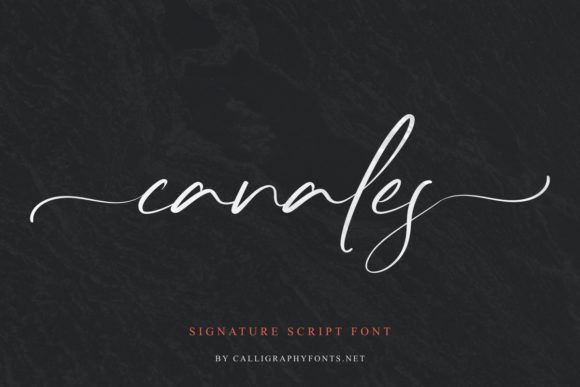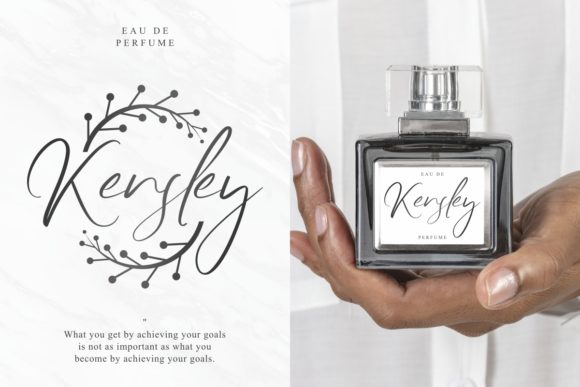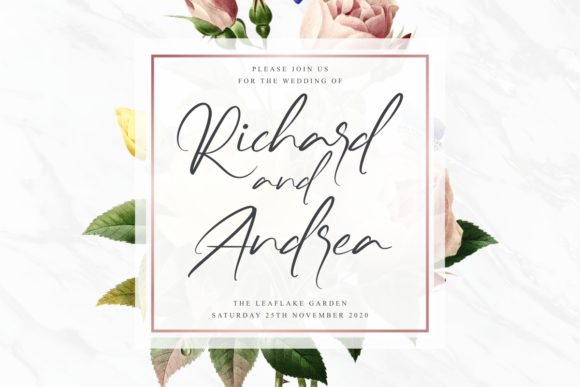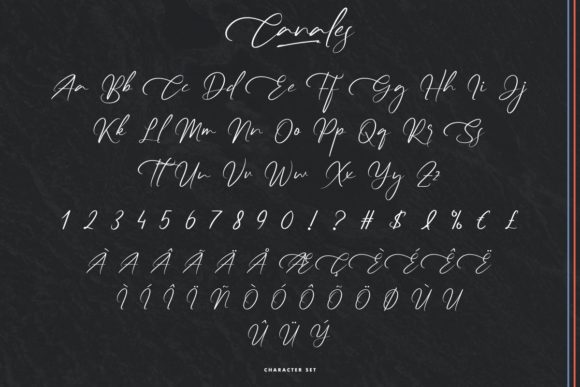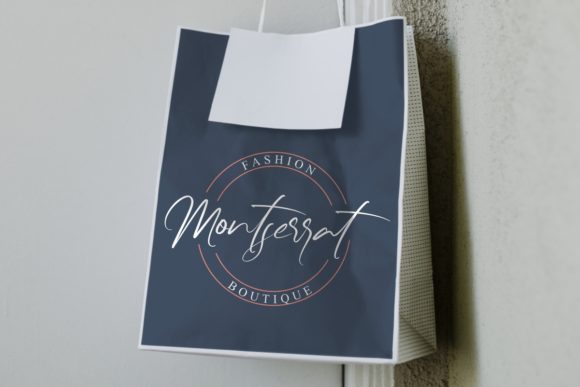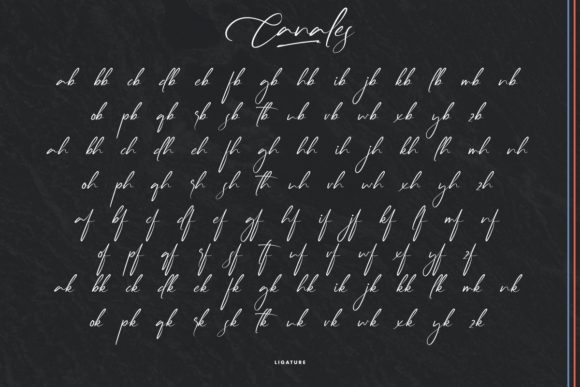
Discover the Elegance of Canales Font: A Perfect Choice for Designers and Crafters
Are you a designer or crafter looking for a font that exudes charm and elegance? Look no further than Canales Font. This beautiful handwritten font is perfect for adding a touch of sophistication to any design project. In this article, we’ll explore the features and benefits of Canales Font, and why it’s a must-have for any creative professional.
A Font that Feels Equally Charming and Elegant
Canales Font is a stunning script font that feels equally charming and elegant. Its flowing lines and delicate curves make it perfect for designs that require a touch of whimsy and romance. Whether you’re working on a wedding invitation, a thank you card, or a quote, Canales Font is sure to impress. Its elegant appearance is sure to elevate any design project and leave a lasting impression on your audience.
Canales Font is a versatile font that can be used for a wide range of design projects. Some of the most popular uses for this font include:
- Thank you cards and greeting cards
- Quotes and typography art
Whether you’re working on a personal project or a client’s design brief, Canales Font is a great choice. Its elegant appearance and flowing lines make it perfect for designs that require a touch of sophistication and whimsy.
One of the best features of Canales Font is that it’s PUA encoded. This means that you can access all of the glyphs and swashes with ease. PUA encoding allows you to access the font’s built-in features, such as ligatures, stylistic alternates, and swashes, using a simple keyboard shortcut. This makes it easy to customize your designs and add a personal touch.
Canales Font offers a range of benefits for designers and crafters. Some of the most significant advantages include:
- Elegant and charming appearance
- Versatile and can be used for a wide range of design projects
- Perfect for adding a touch of sophistication and whimsy to designs
In conclusion, Canales Font is a beautiful and elegant script font that’s perfect for designers and crafters. Its charming appearance and flowing lines make it perfect for designs that require a touch of sophistication and whimsy. With its PUA encoding and easy-to-use features, Canales Font is a must-have for any creative professional. Whether you’re working on a wedding invitation, a logo, or a quote, Canales Font is sure to impress.